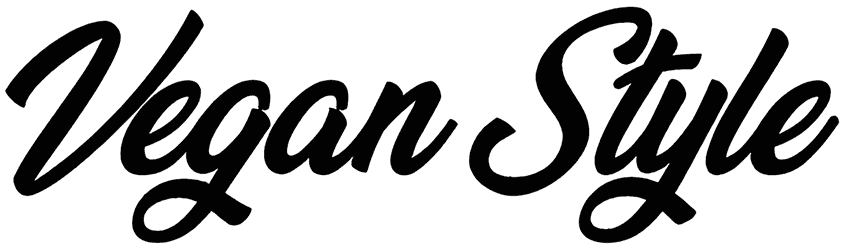
Vegan Style Font
Vegan Style font is for those who like friendly and luxurious designs. This script and handwriting font can help you choose your luxurious invitation card.